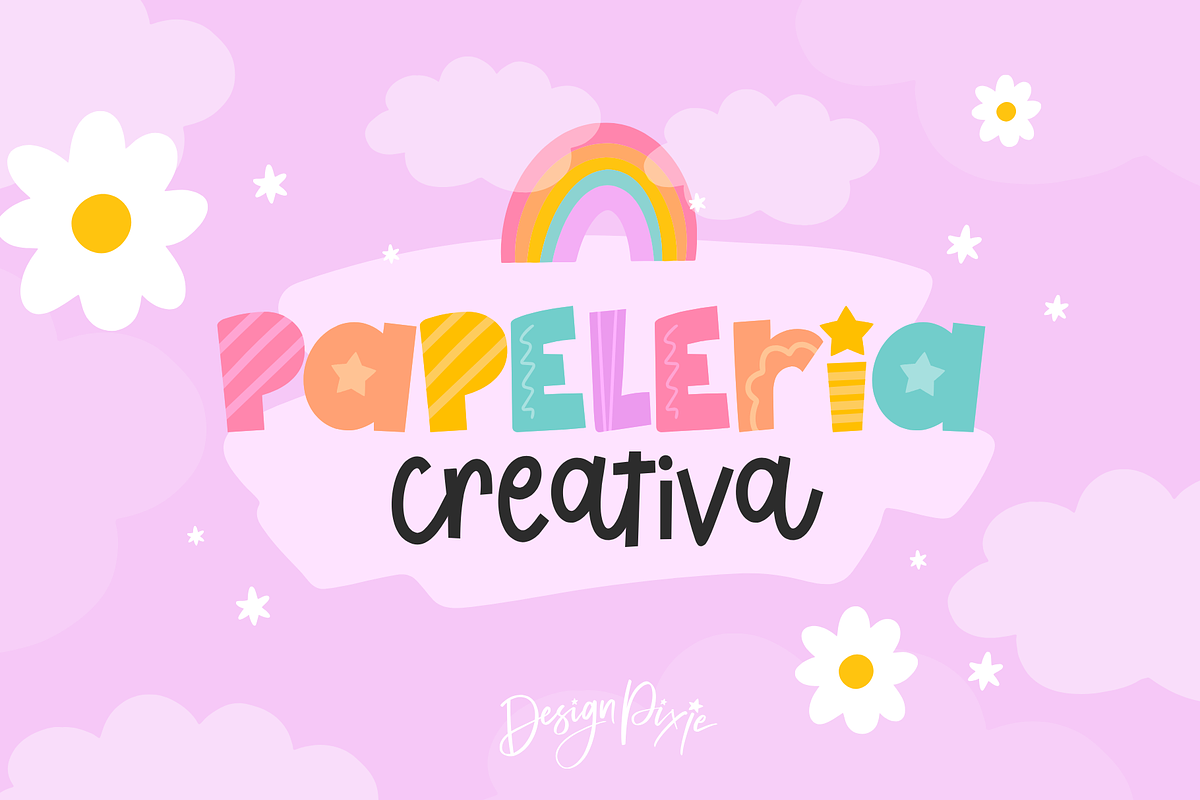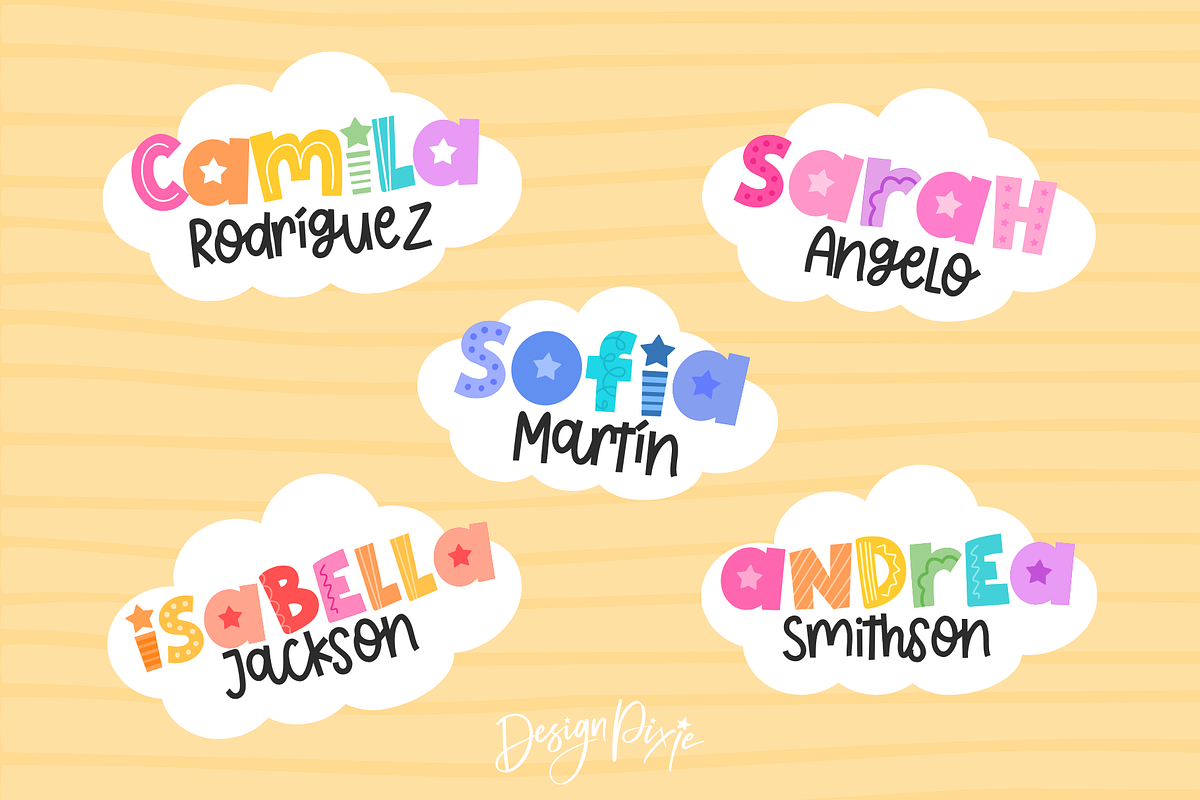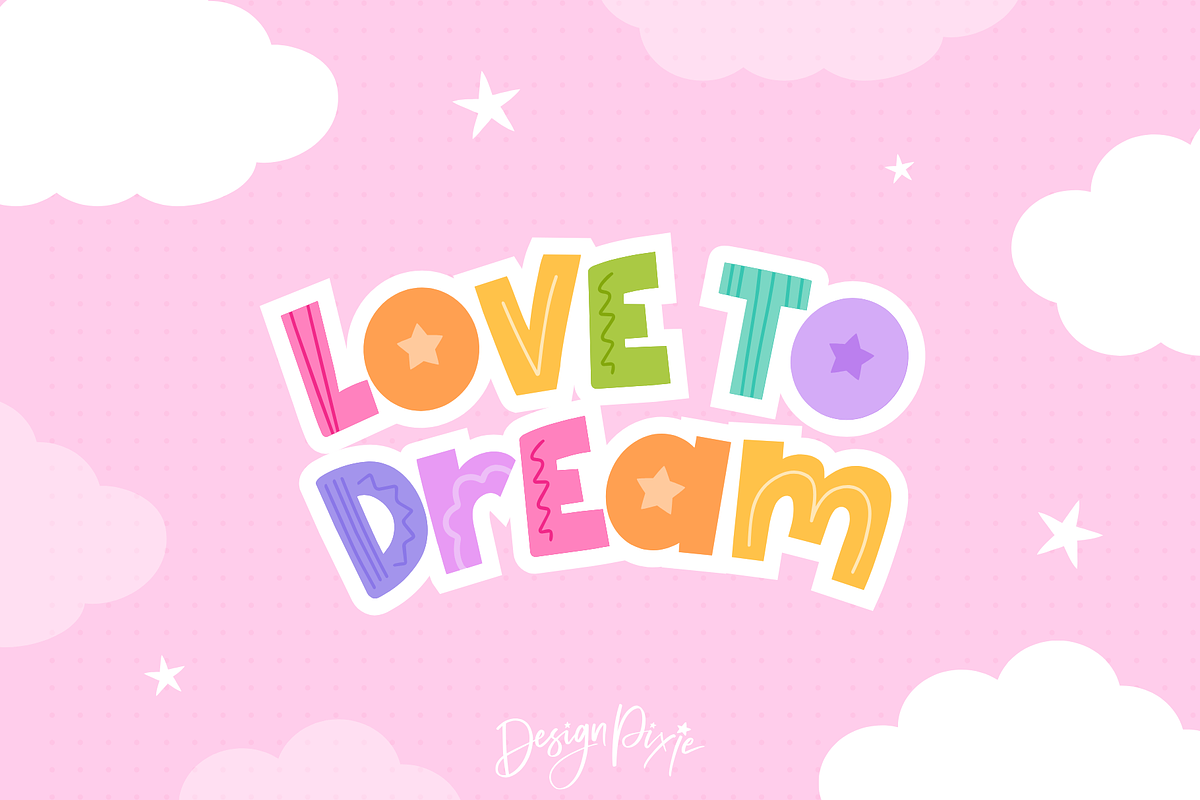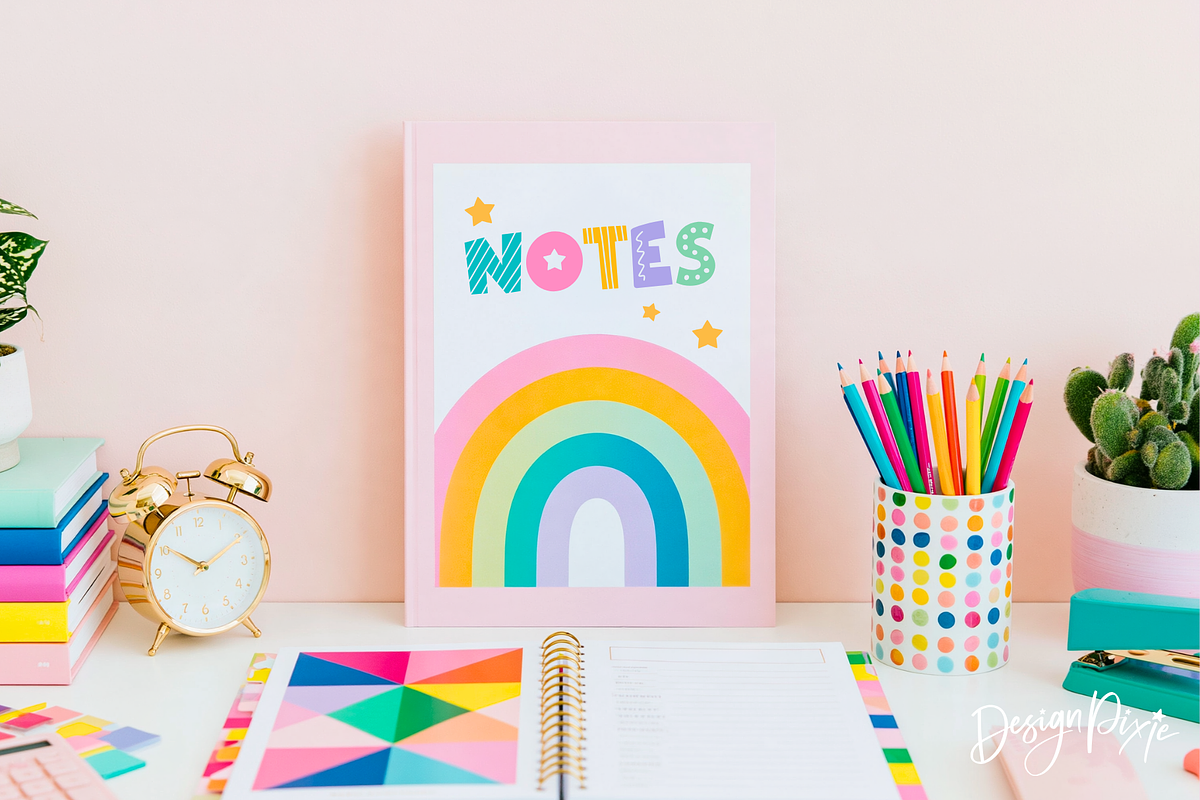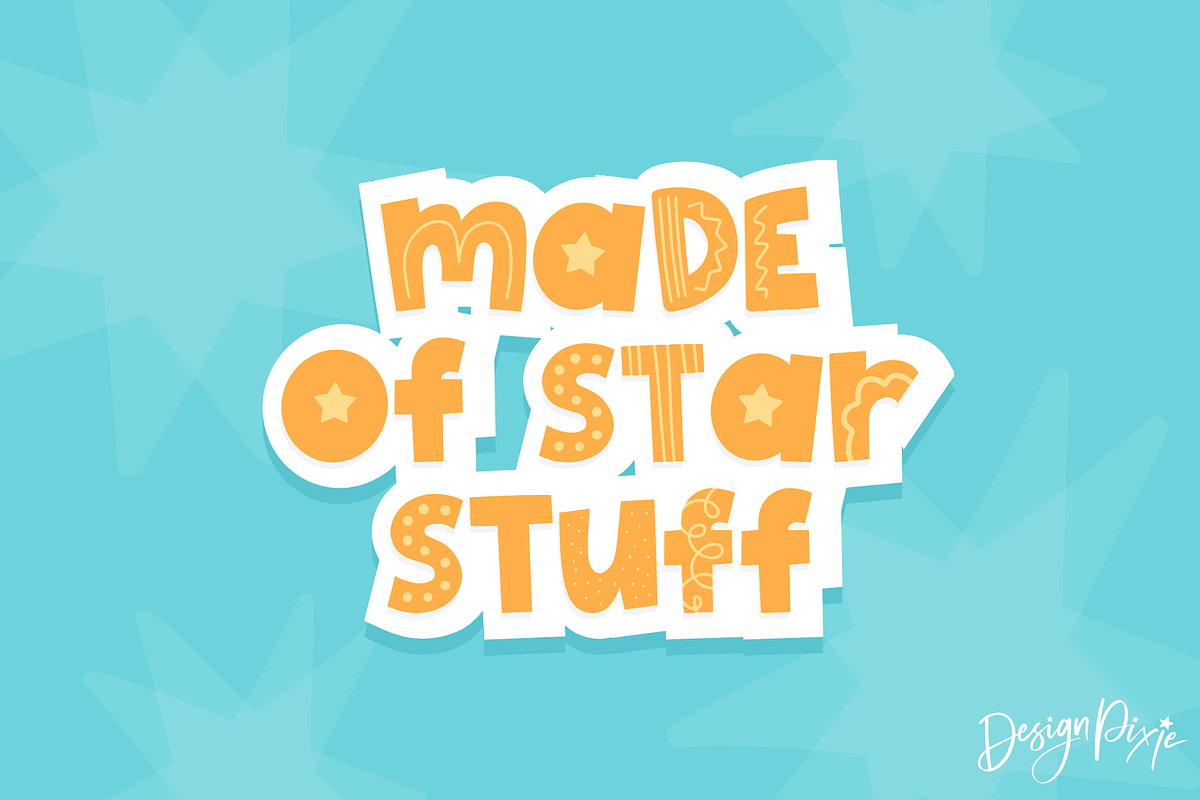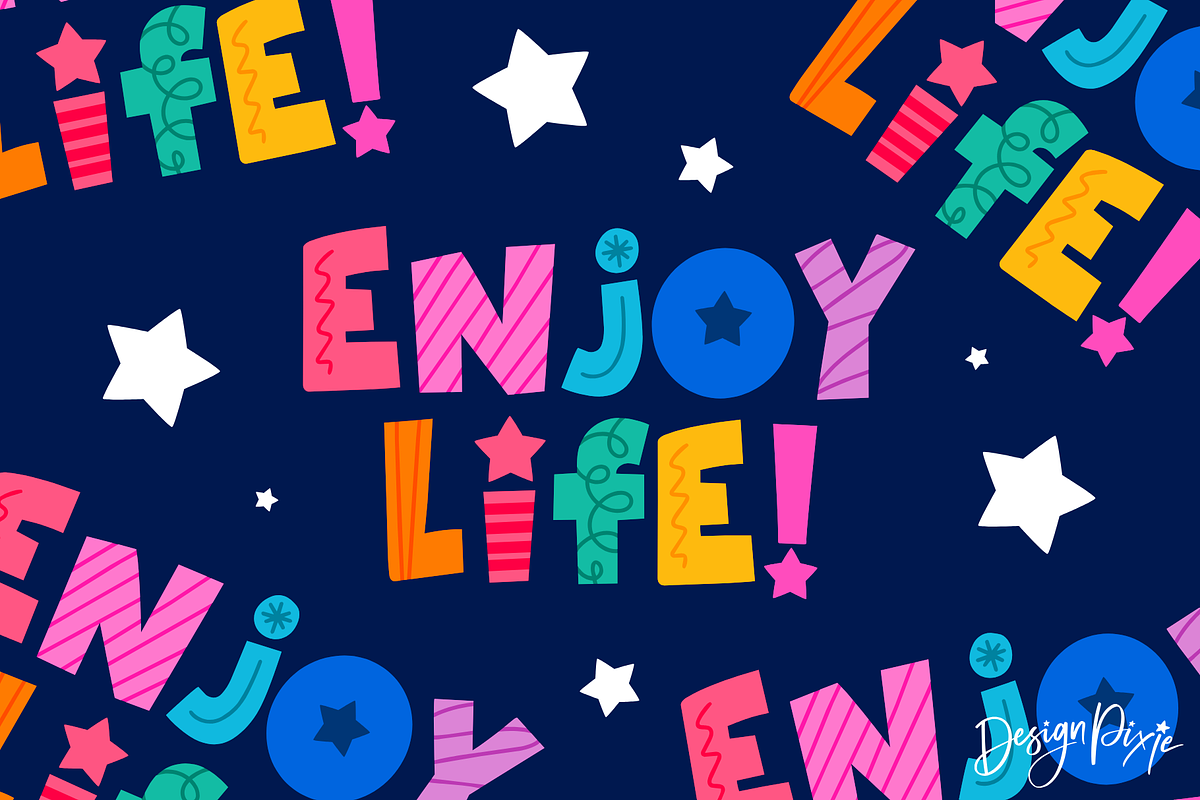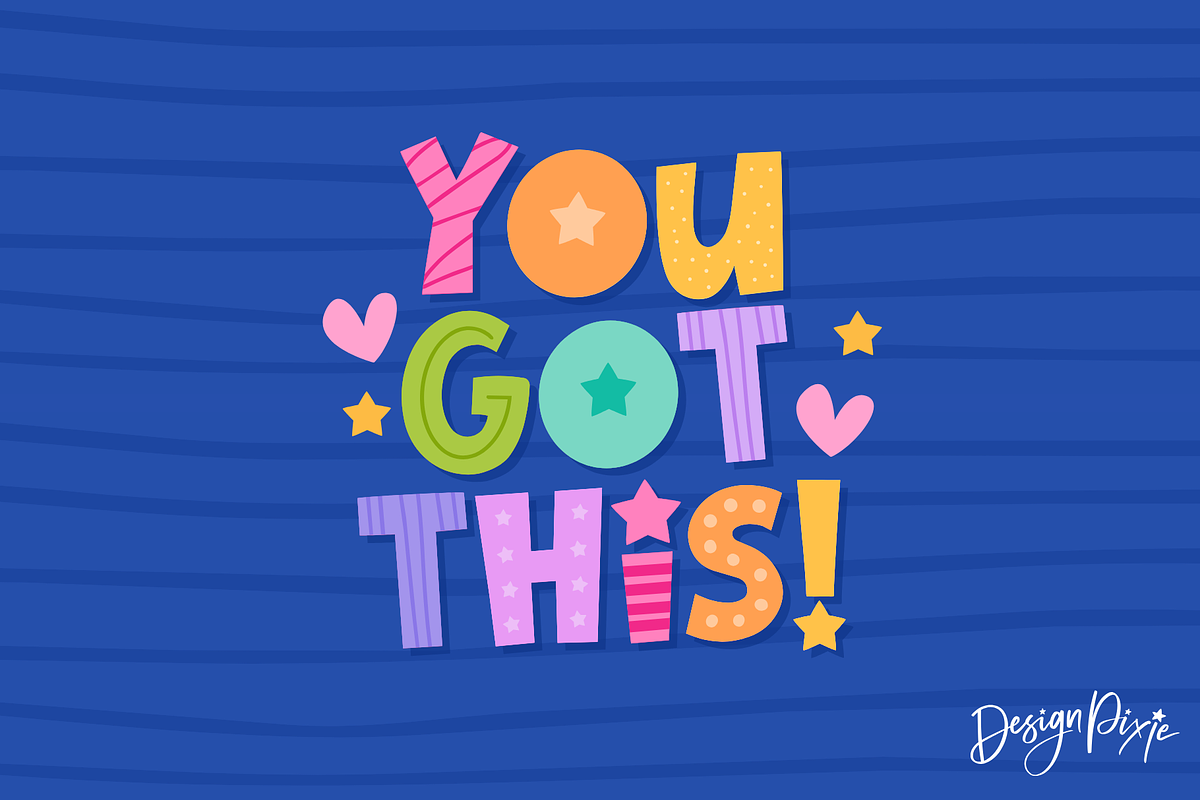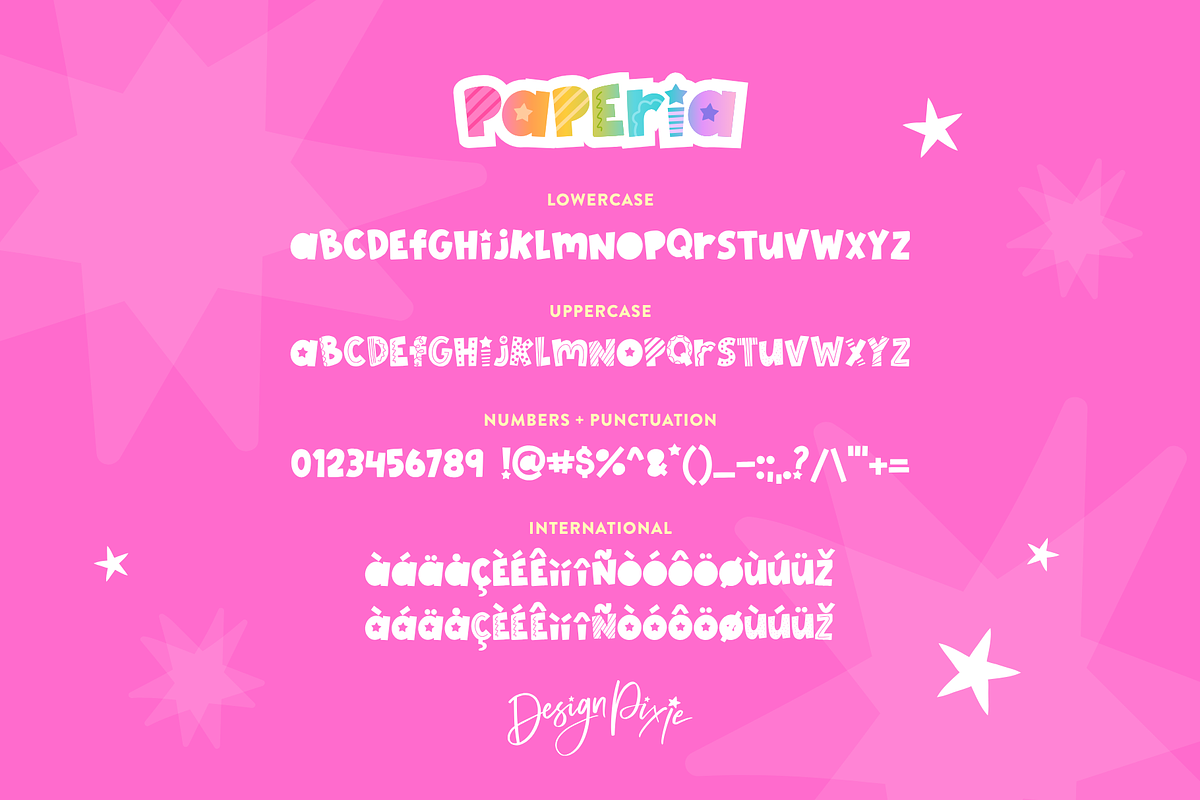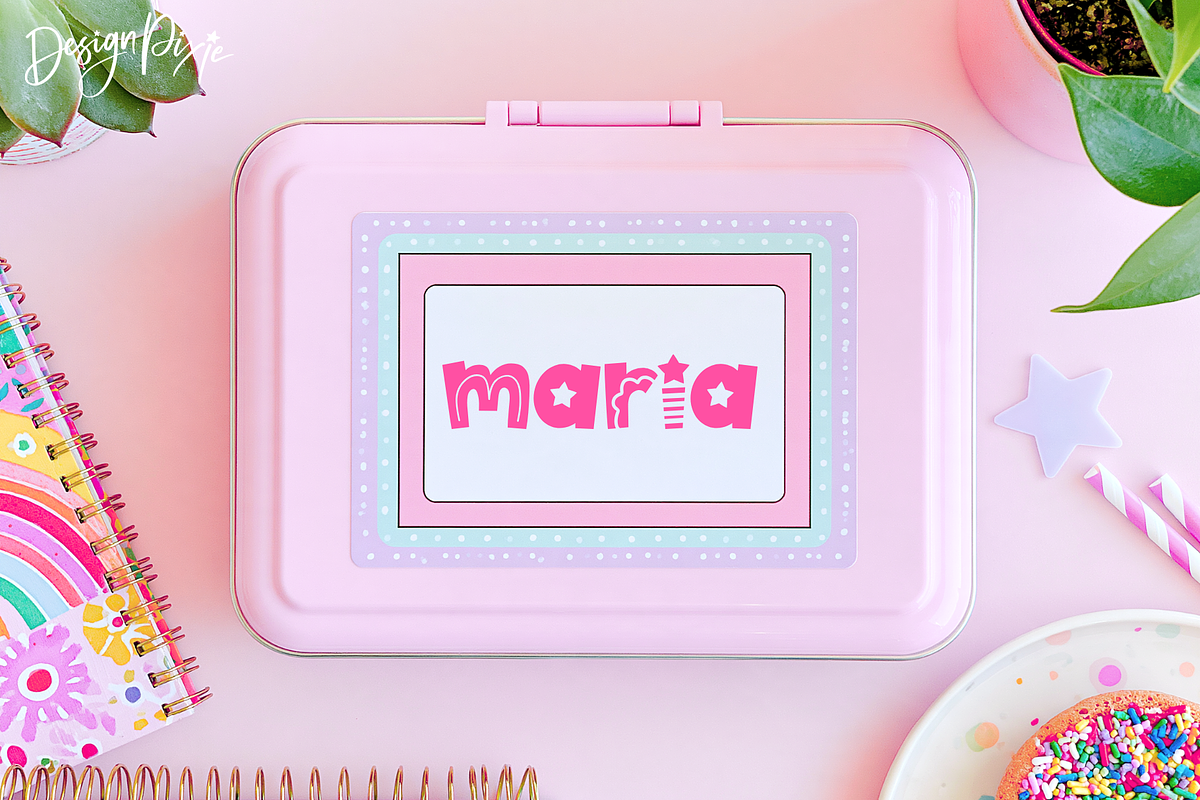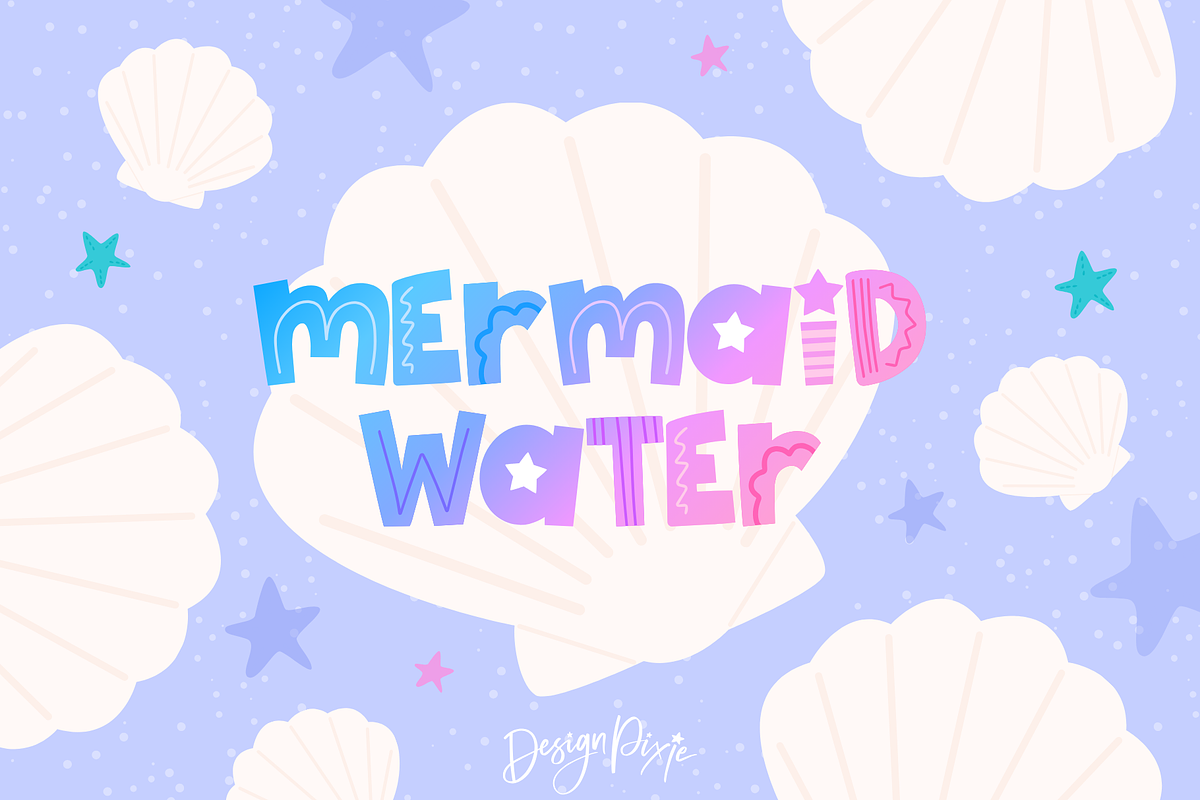
Paperia Font
Meet Paperia font, a bold and playful display typeface with fun patterns. Paperia is made for designs that need a little more personality.
It includes one character set with a mix of lowercase and uppercase letters. The lowercase characters are clean and plain, while the uppercase characters feature playful patterns including stars, stripes, spots and squiggles.
Mix and match the characters to create your own look, or use the patterned letters when you really want your words to stand out!
Paperia is perfect for adding a fun, bold touch to:
- Logos & branding
- Cricut projects
- T-shirts & apparel
- Sublimation designs
- Stickers & stationery
- Children's designs
- Posters & signs
- Greeting cards
- Invitations
- Product packaging
- Quotes & typography
- and more!